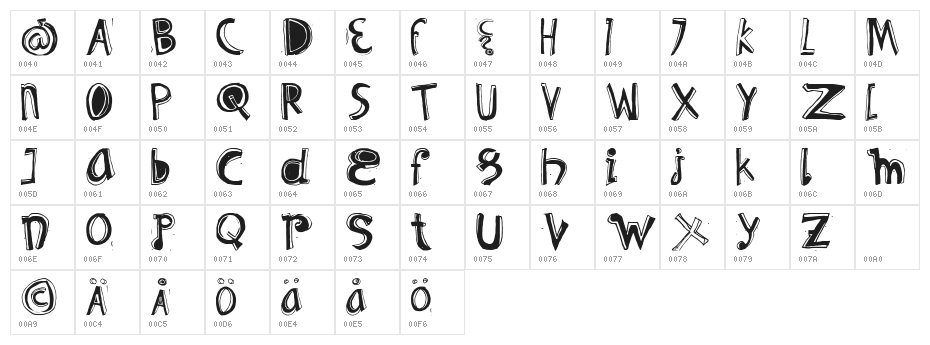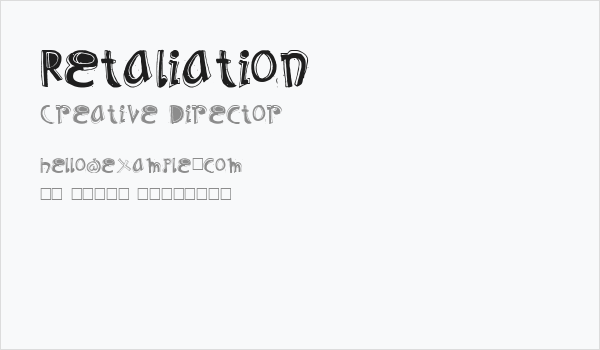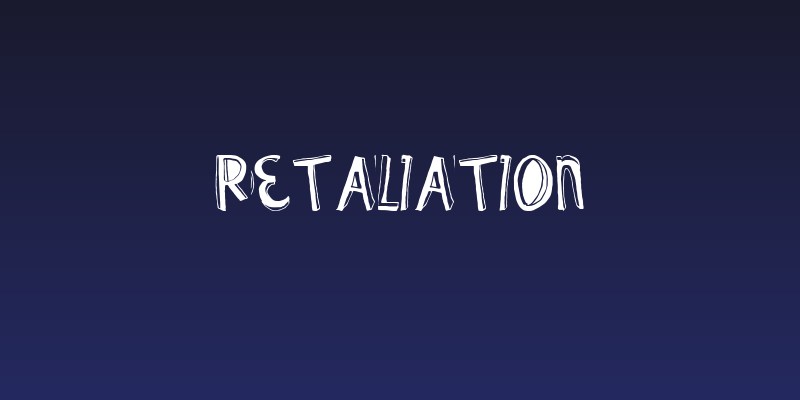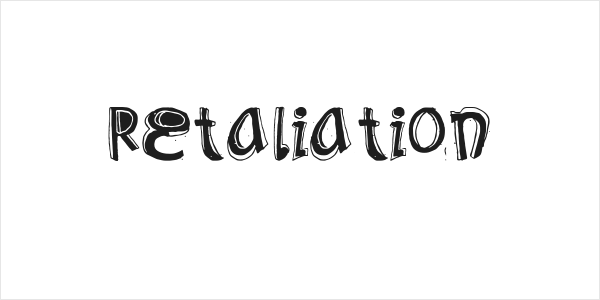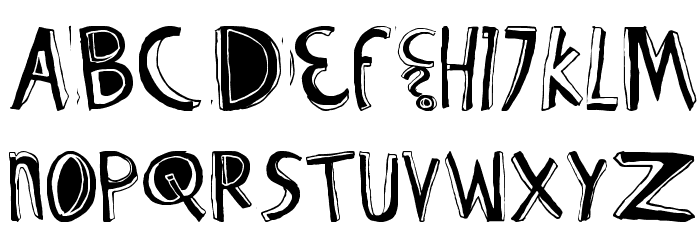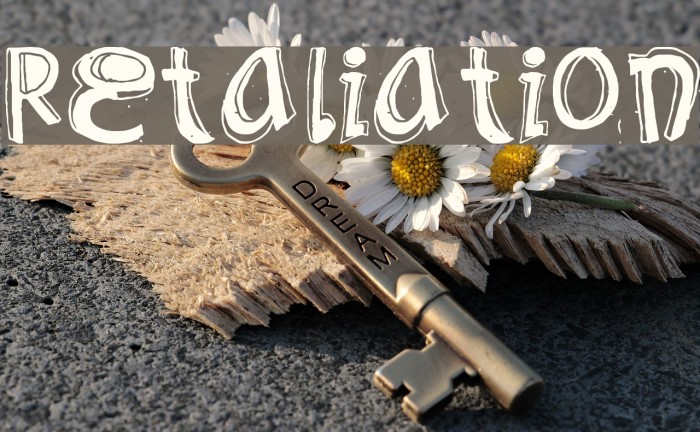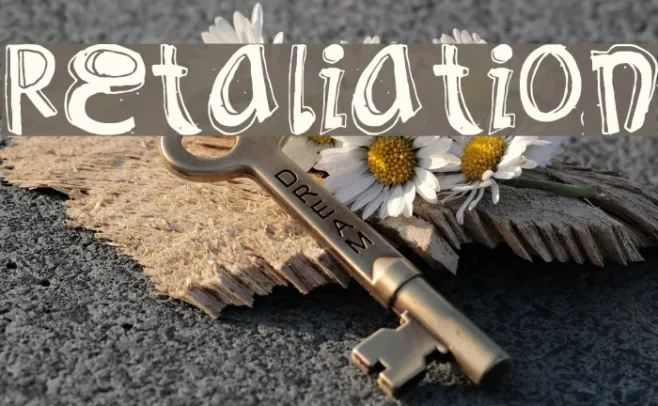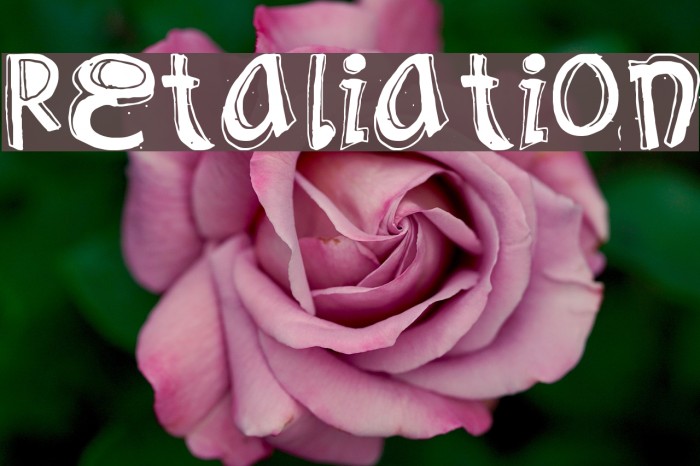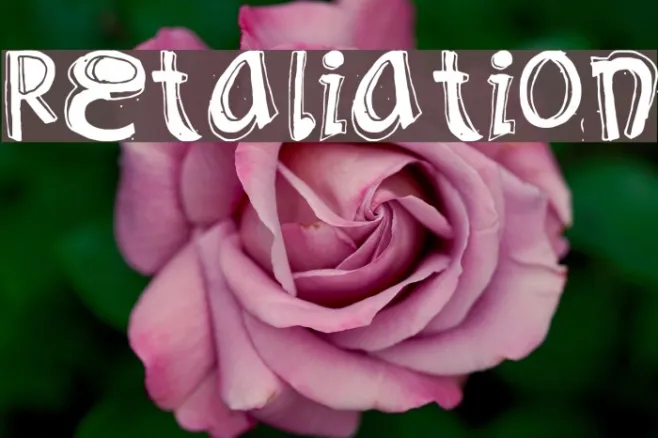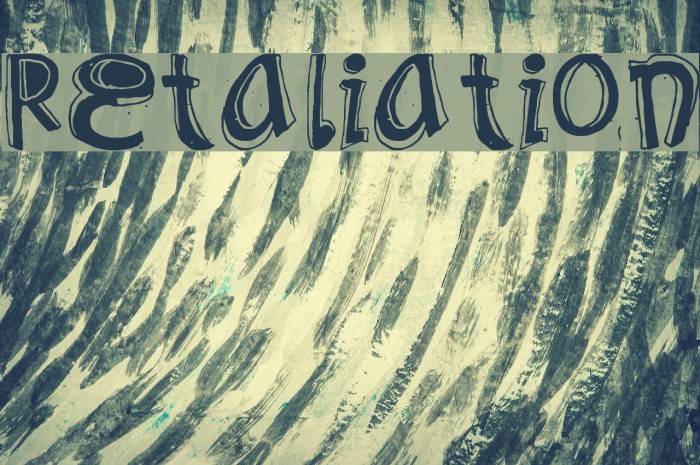
Retaliation Font
Retaliation Description
This font features a playful and quirky design with an artistic flair. Each character is uniquely styled with uneven strokes and varying thickness, giving it a hand-drawn appearance. The letters have a whimsical and dynamic feel, with some characters incorporating decorative elements like swirls and loops. The overall look is bold and expressive, making it stand out in any design. The font maintains a consistent baseline, but the heights and widths of the characters vary, adding to its charm and individuality.
| Proposed Projects | Ideal for creative projects such as children's books, greeting cards, posters, and branding for playful or artistic brands. |